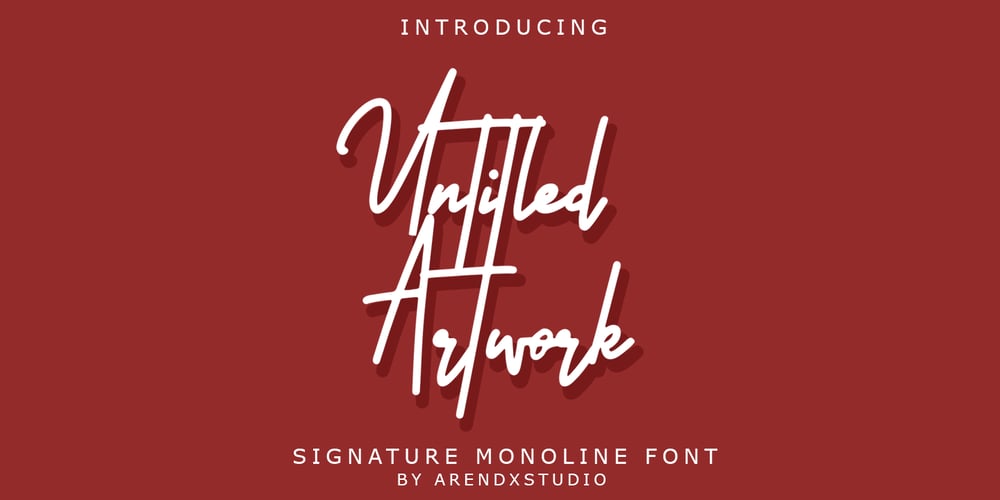
Untitled Artwork Font Family was designed by Asep Rendi and published by Arendxstudio. Untitled Artwork contains 1 styles and family package options. Introducing our newest Signature font Untitled Artwork. Untitled Artwork Signature is made as elegant as possible for the use of your design project. It is suitable for a variety of design projects, including logos & amps, branding, wedding designs, social media posts, advertisements, product designs, magazines and more. There it is! I really hope you enjoy it – comments & likes are always welcome and accepted. More importantly, don’t hesitate to send a message if you have a problem or question. Now just read this, go there and make it happen.